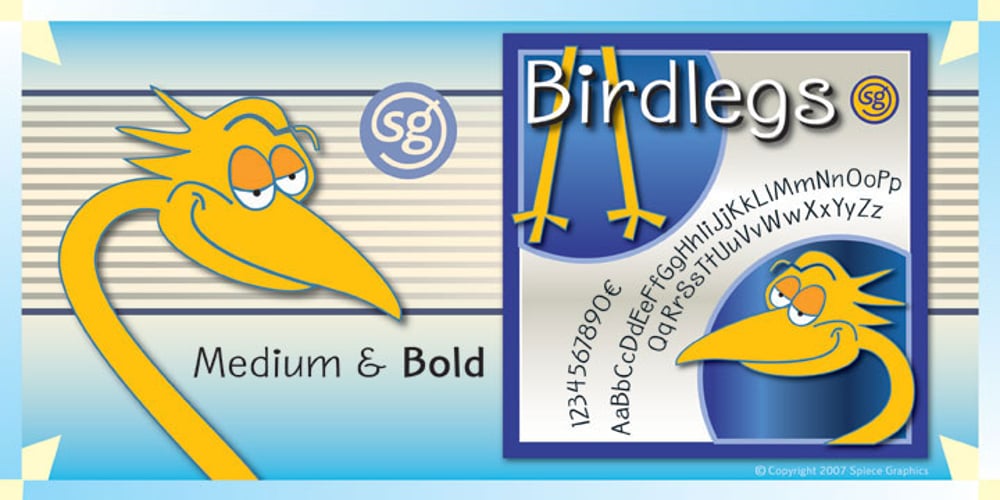
Birdlegs SG Font Family was designed by Jim Spiece and published by Spiece Graphics. Birdlegs SG contains 2 styles and family package options. Picture a tall, long-legged flamingo fishing casually for food in the Florida Everglades. The young pink bird teeters momentarily and then falls over. You have captured the essence of Birdlegs – leggy, colorful, and a bit awkward. Here is a design that works well in a number of situations including greeting cards, party favors, and casual correspondence. Use this energetic and slightly scatterbrained typeface where humor and playfulness are appropriate. Birdlegs is also available in the OpenType Std format. Some new characters have been added to this OpenType version. Advanced features currently work in Adobe Creative Suite InDesign, Creative Suite Illustrator, and Quark XPress 7. Check for OpenType advanced feature support in other applications as it gradually becomes available with upgrades.